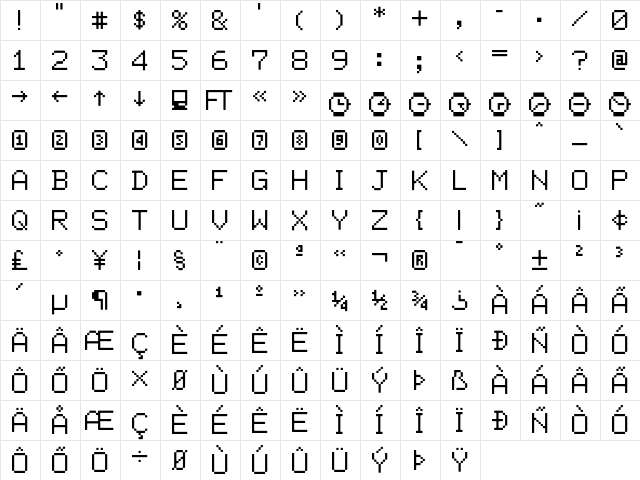
FacsimileLL Regular
Design Context for FacsimileLL Typeface
FacsimileLL takes a measured approach to typography — its balanced proportions and neutral character make it a reliable workhorse for both digital and print work.